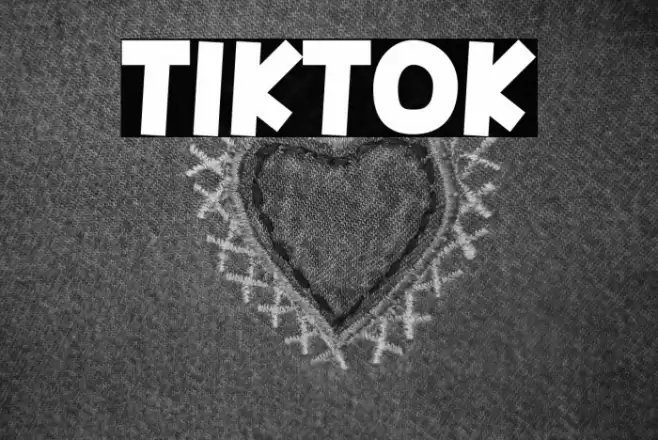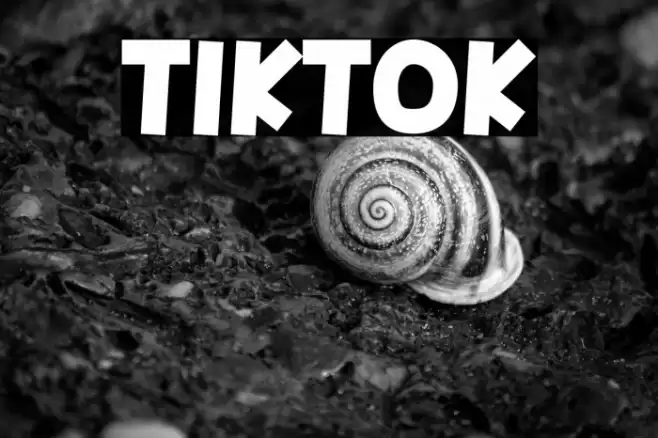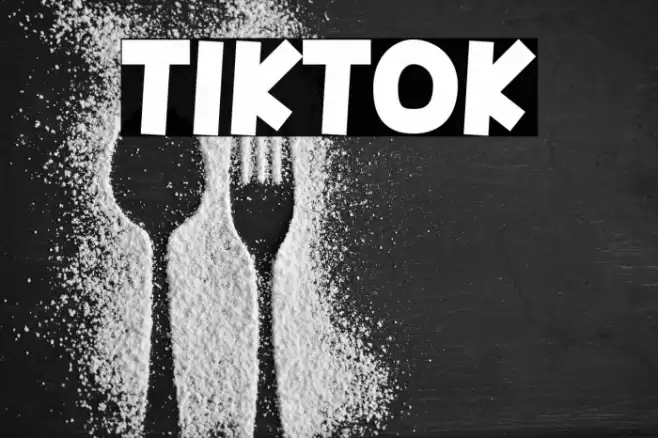
Tiktok Font
Tiktok Description
This font features bold, dynamic characters with a playful and energetic style. The letters are slightly slanted, giving them a sense of movement and excitement. The strokes are thick and consistent, creating a strong visual impact. The overall design is modern and eye-catching, making it suitable for attention-grabbing headlines or branding. The uppercase letters are prominent, with a unique flair in the angles and curves, adding to the font's distinctive personality.
A bold, dynamic font with playful, energetic characters from Comic fonts.
- Proposed Projects: Ideal for branding, advertising, posters, and social media graphics.